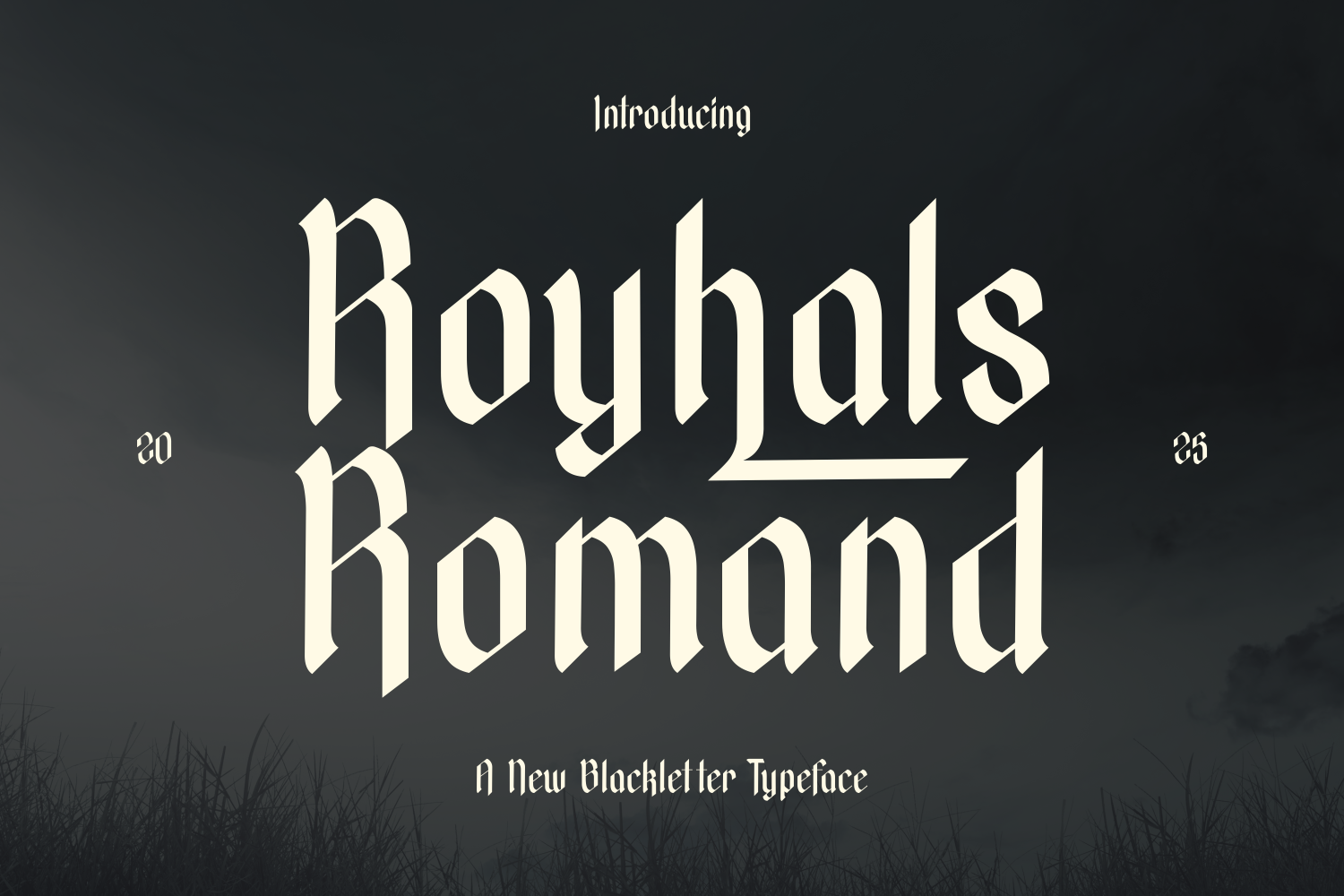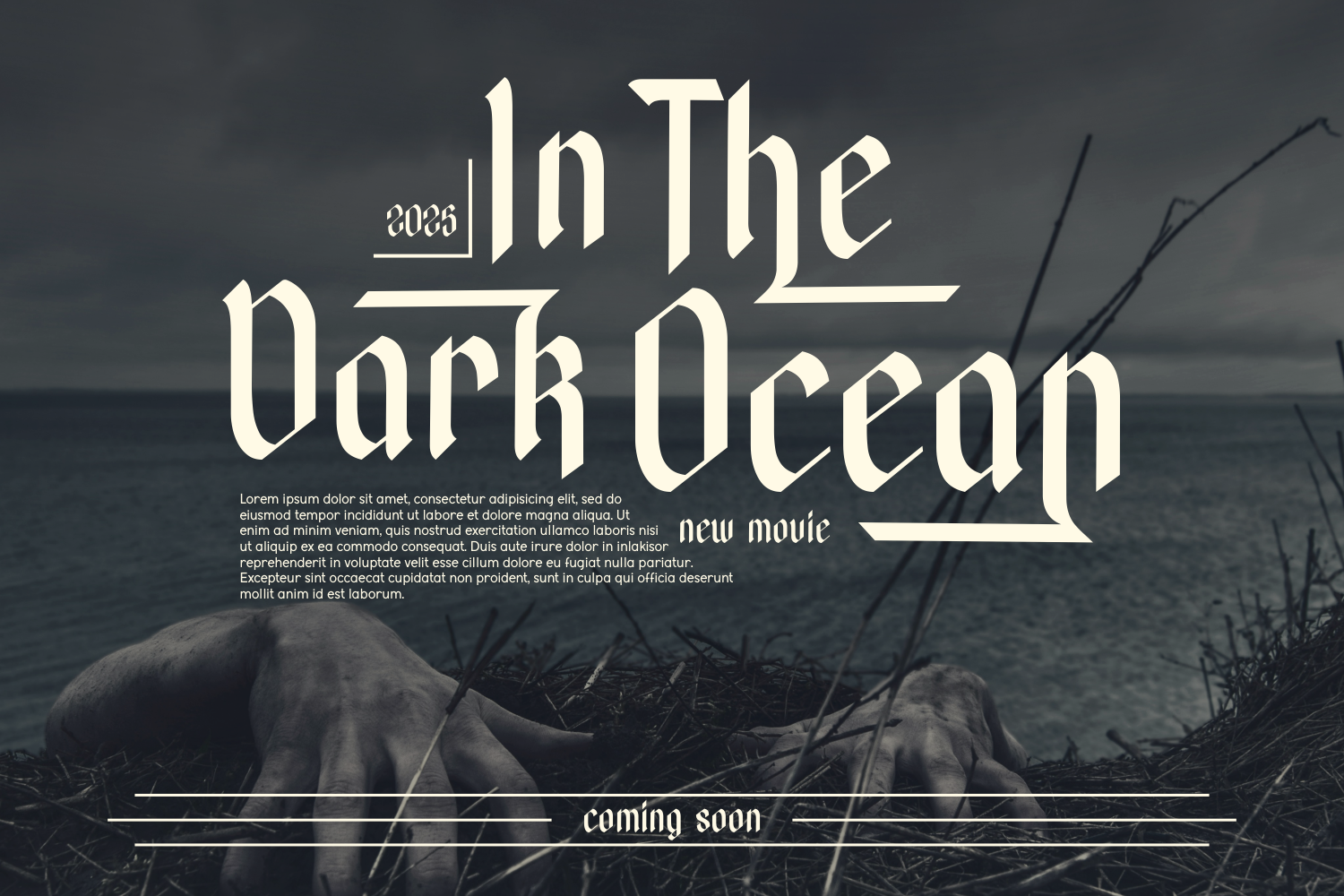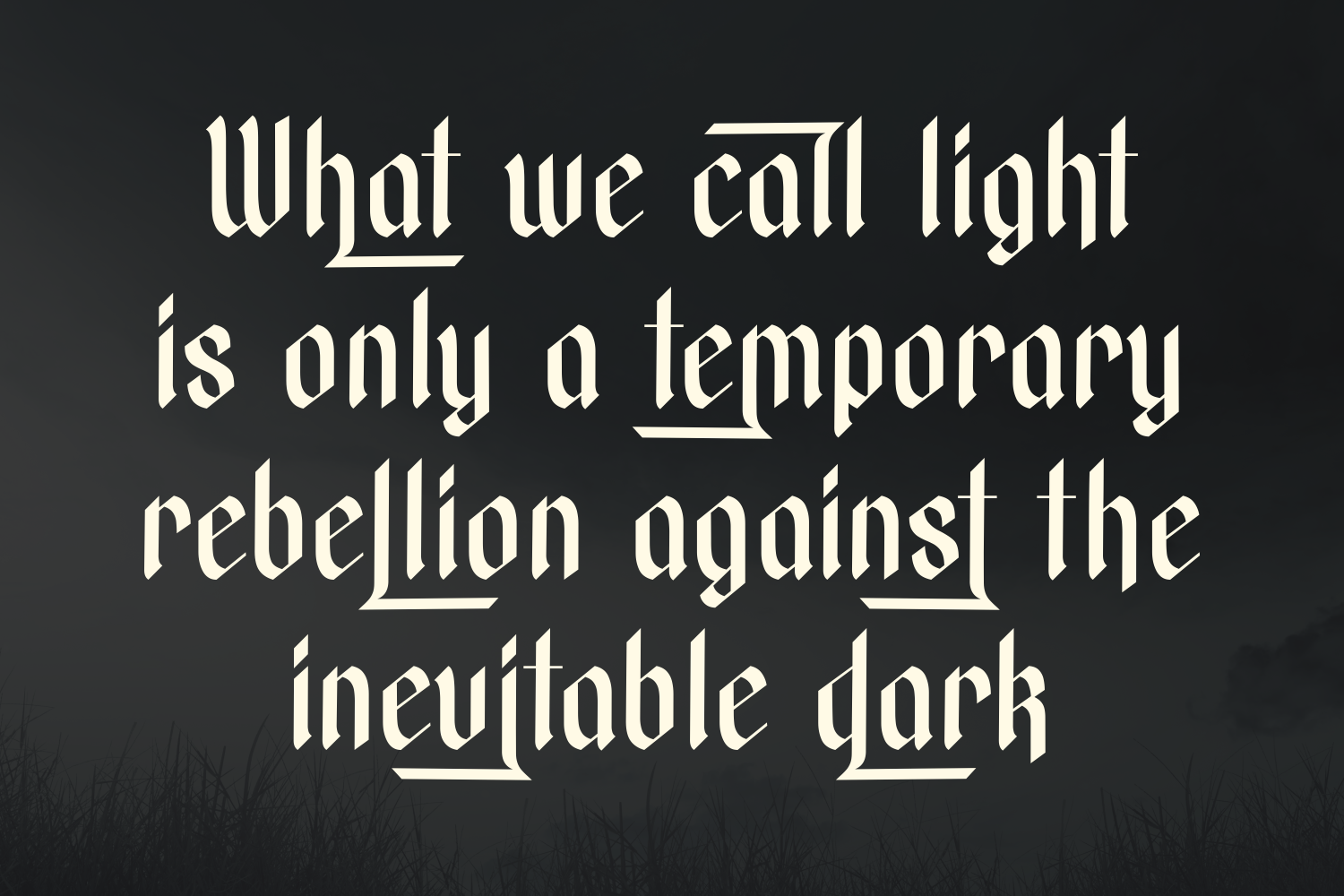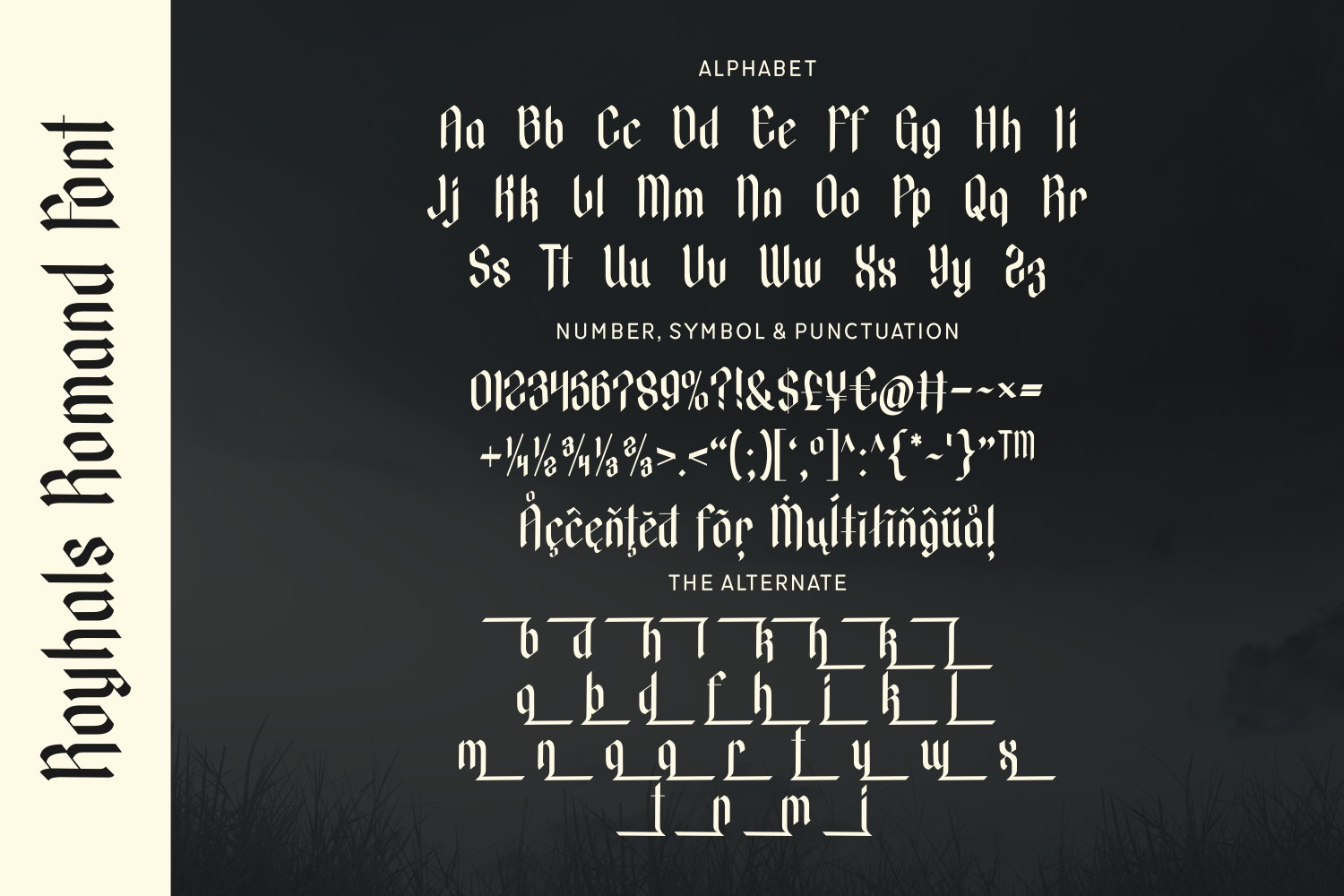
Royhals Romand is a regal blackletter typeface with tall, refined letterforms and a clean, modern twist on gothic tradition. Its elegant posture and balanced strokes make it perfect for fantasy book covers, editorial headers, and luxury branding.
Rooted in history but styled for contemporary aesthetics, Royhals Romand evokes both prestige and creativity. It’s where old-world tradition meets modern-day power.